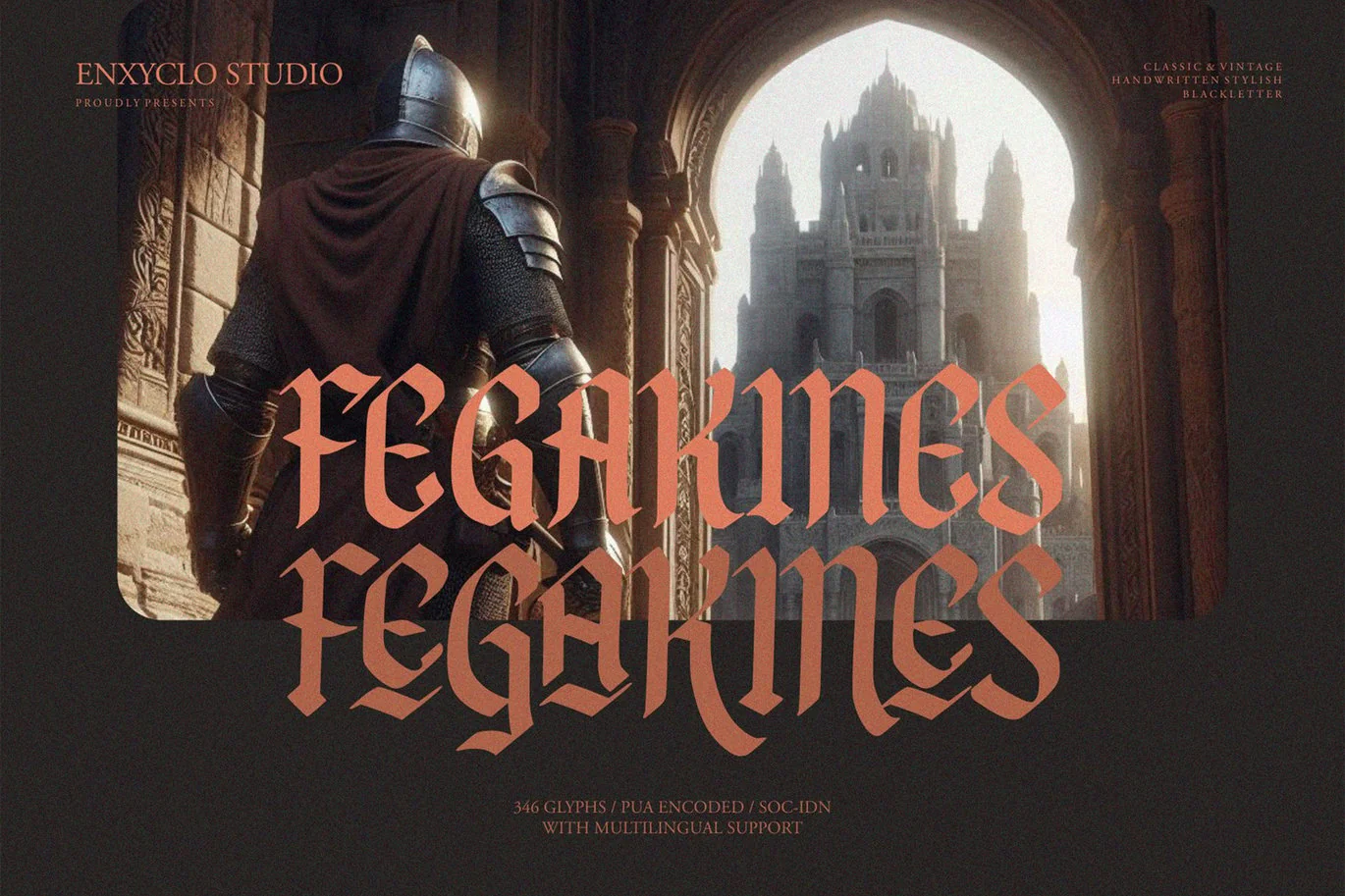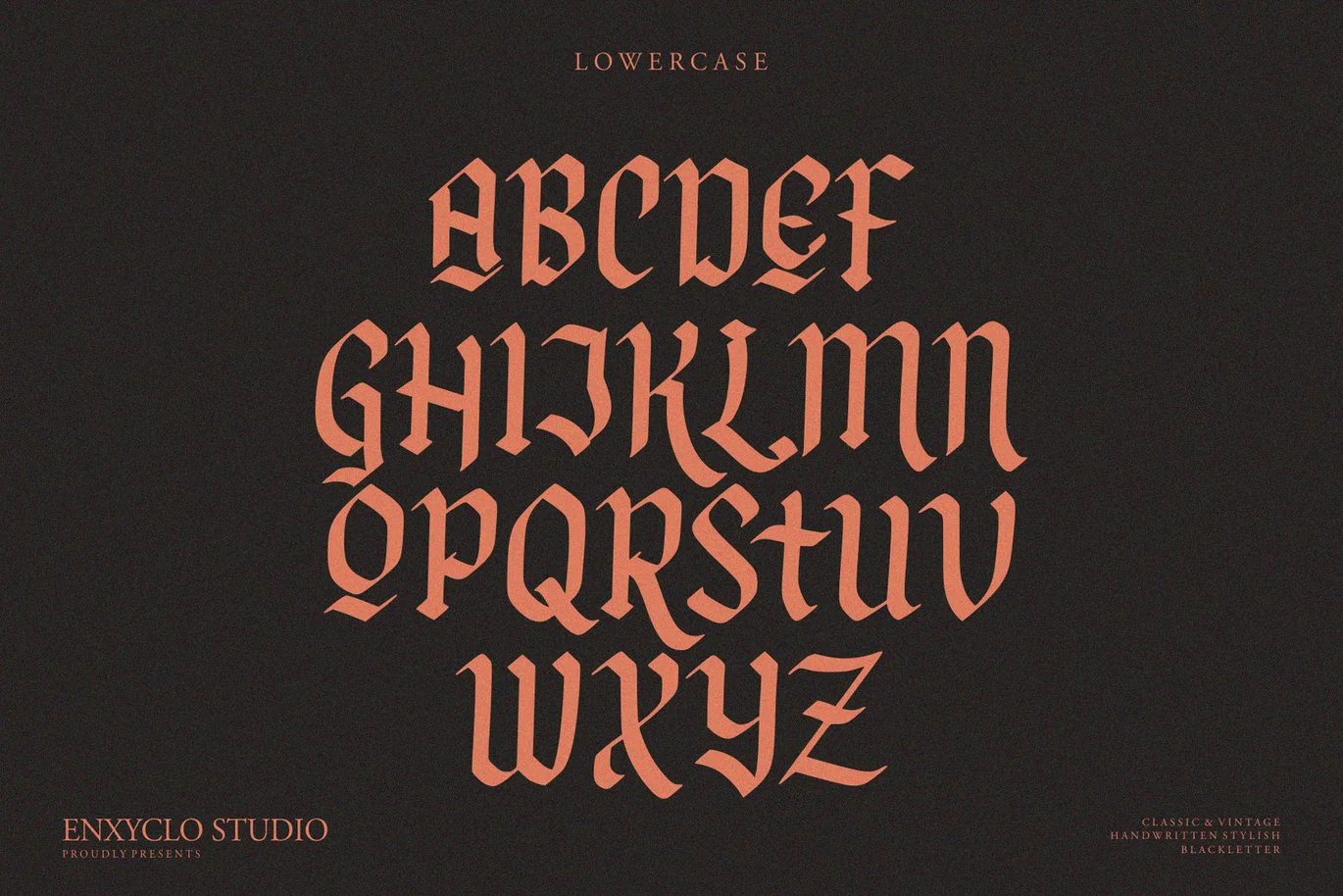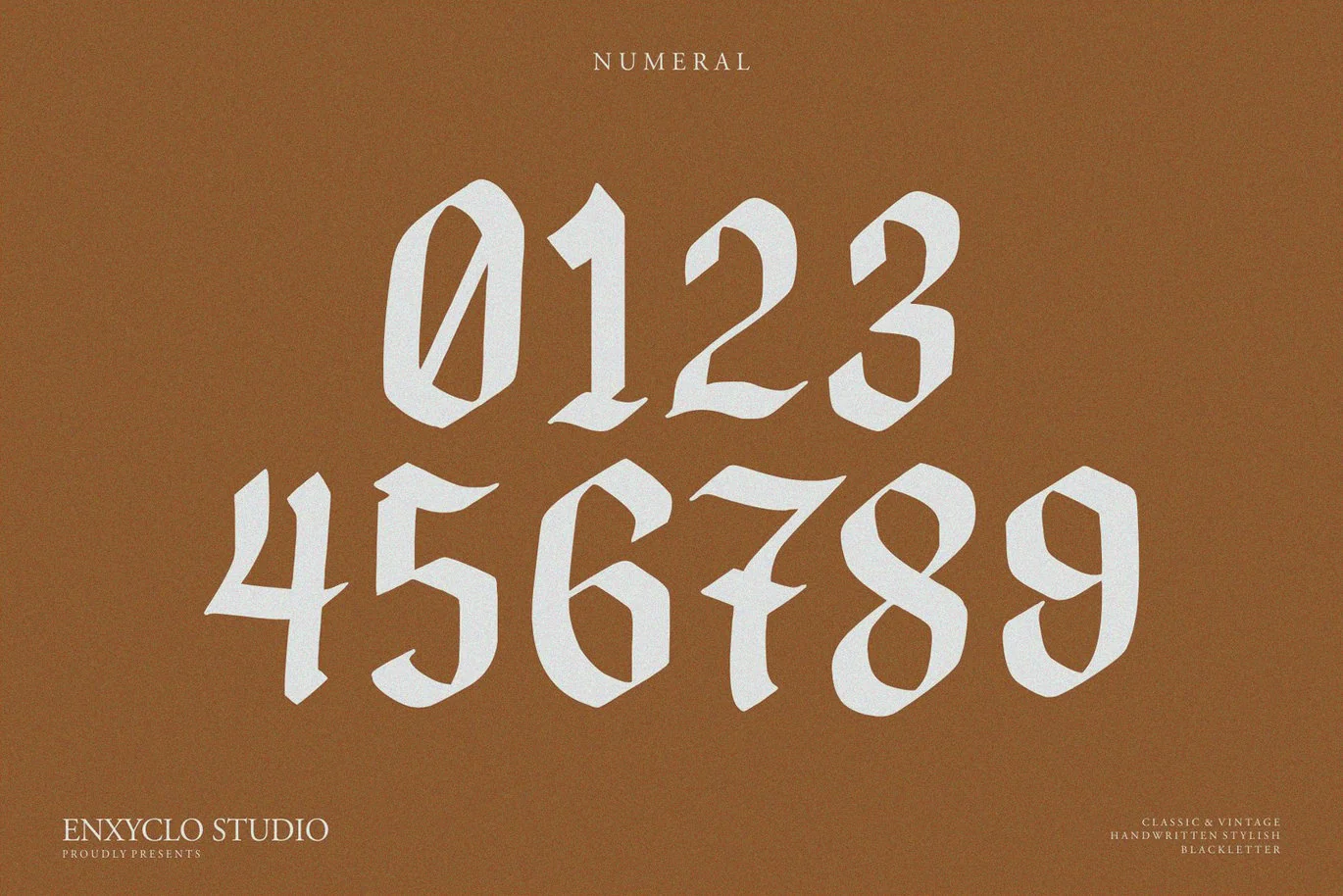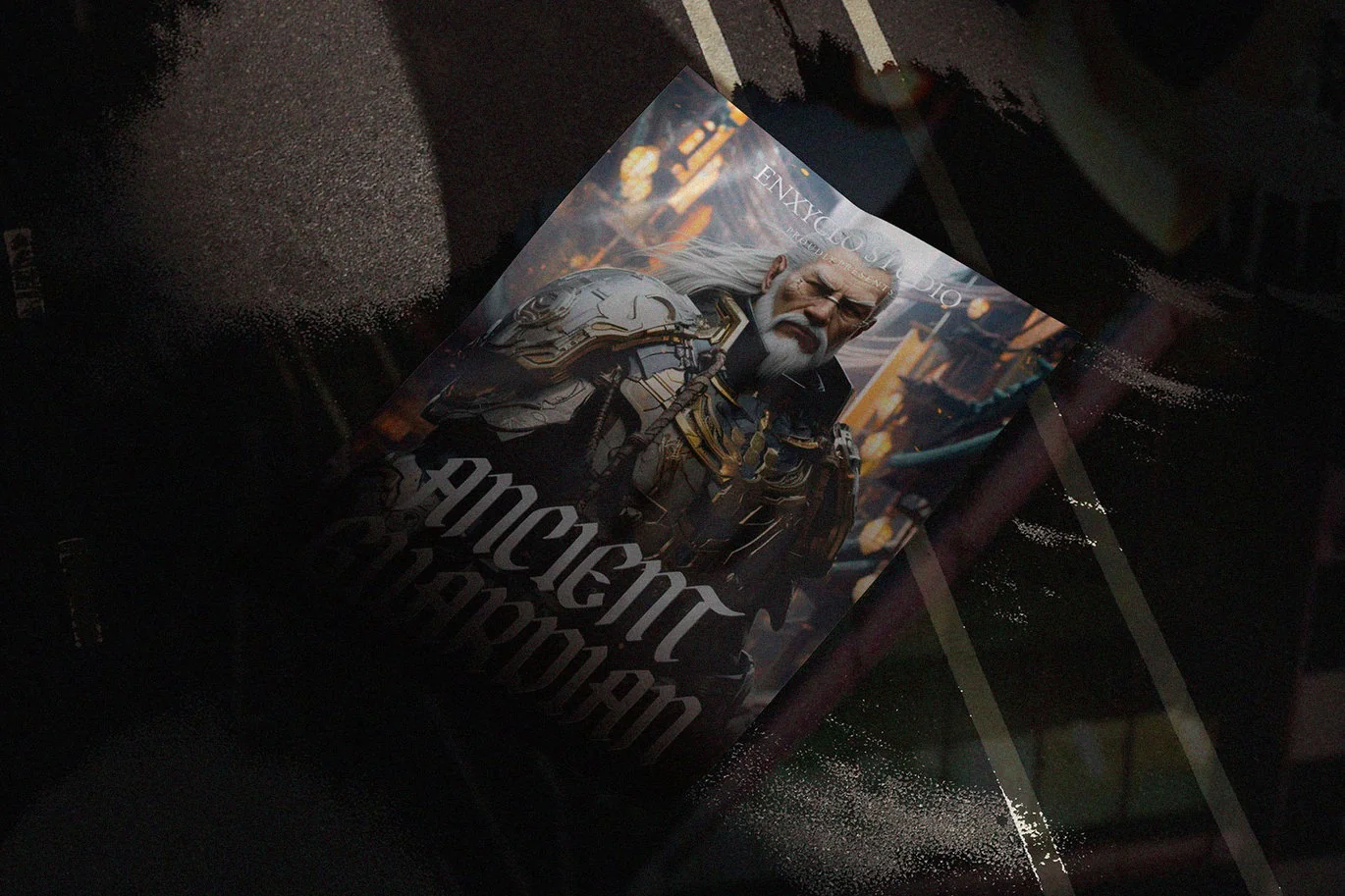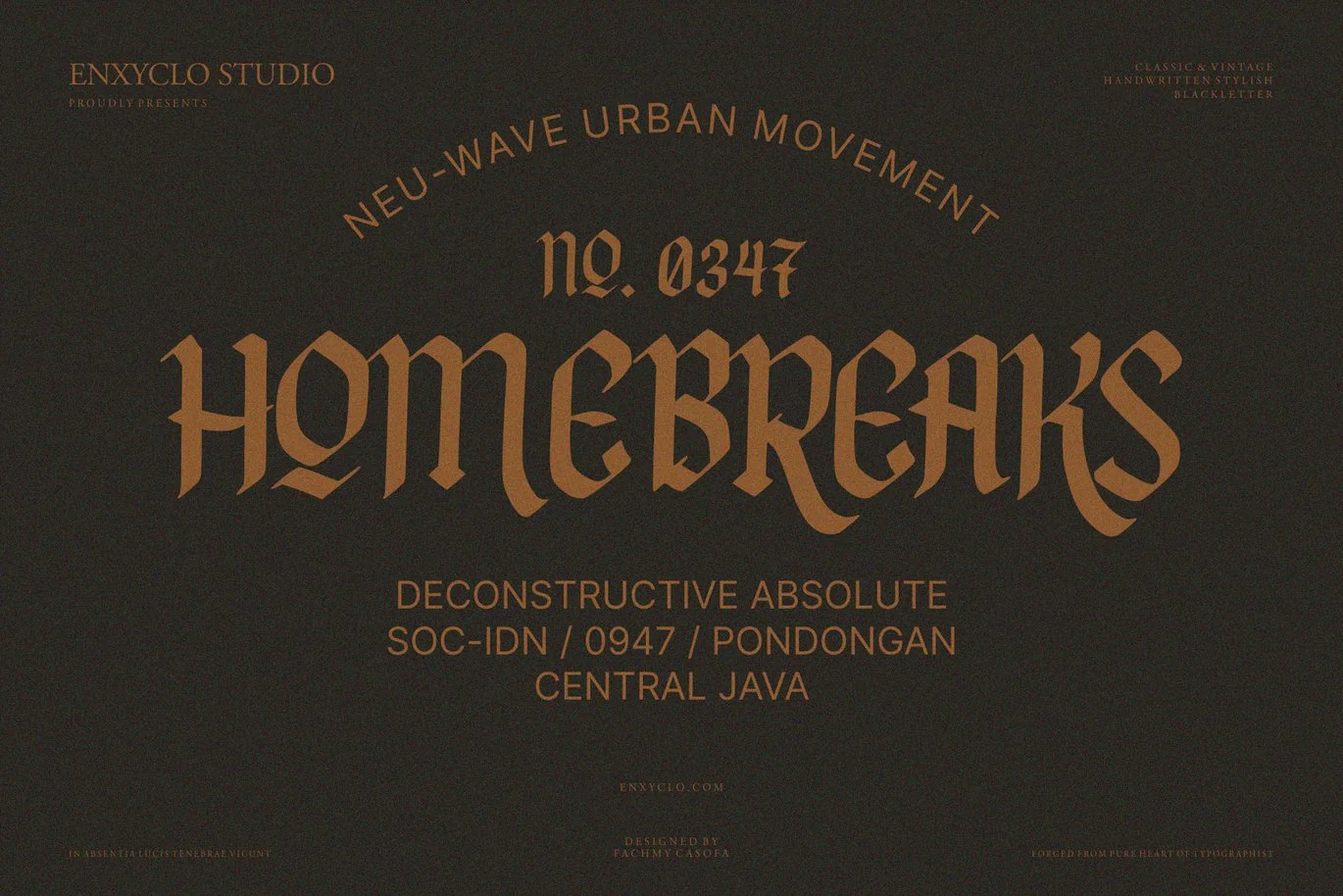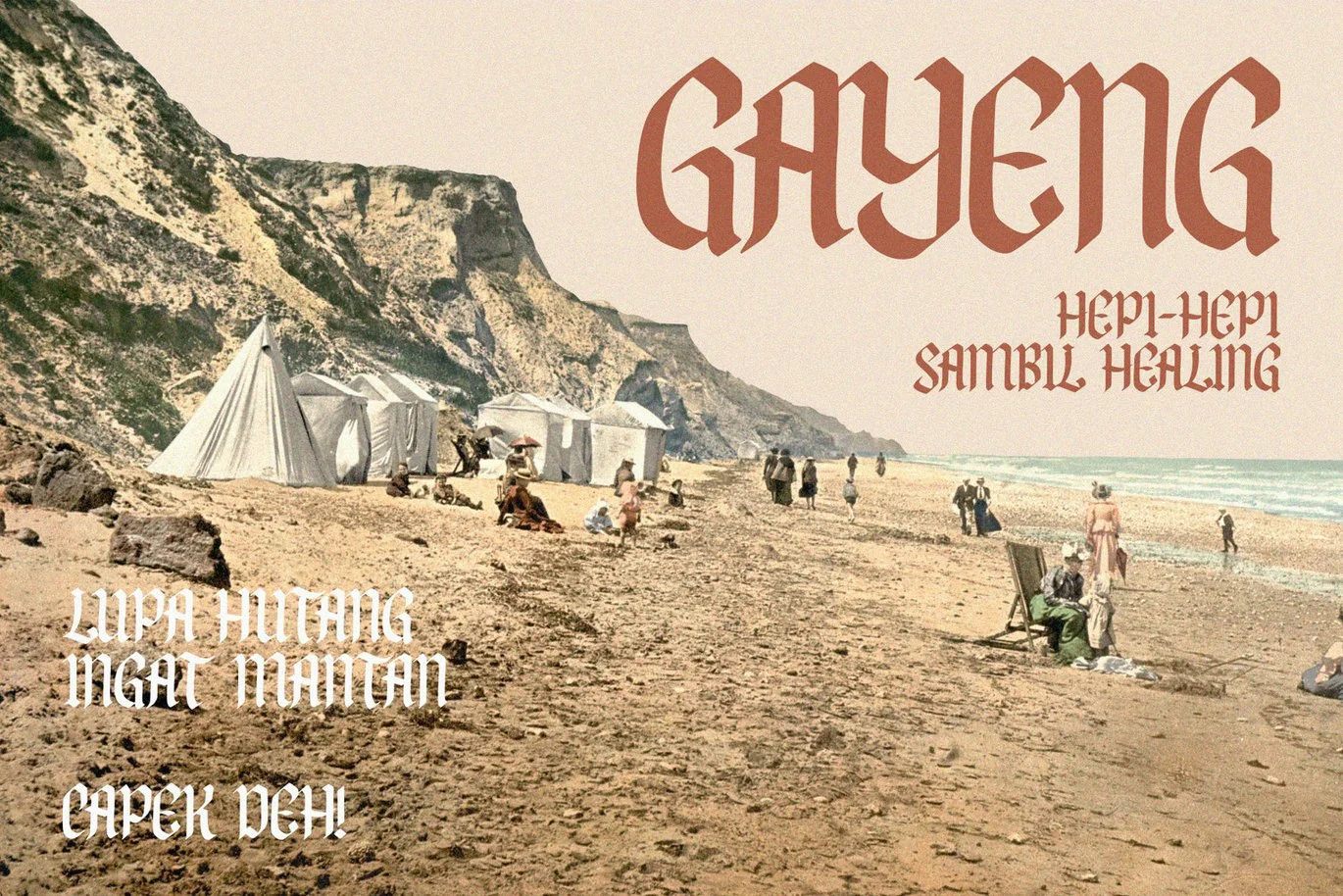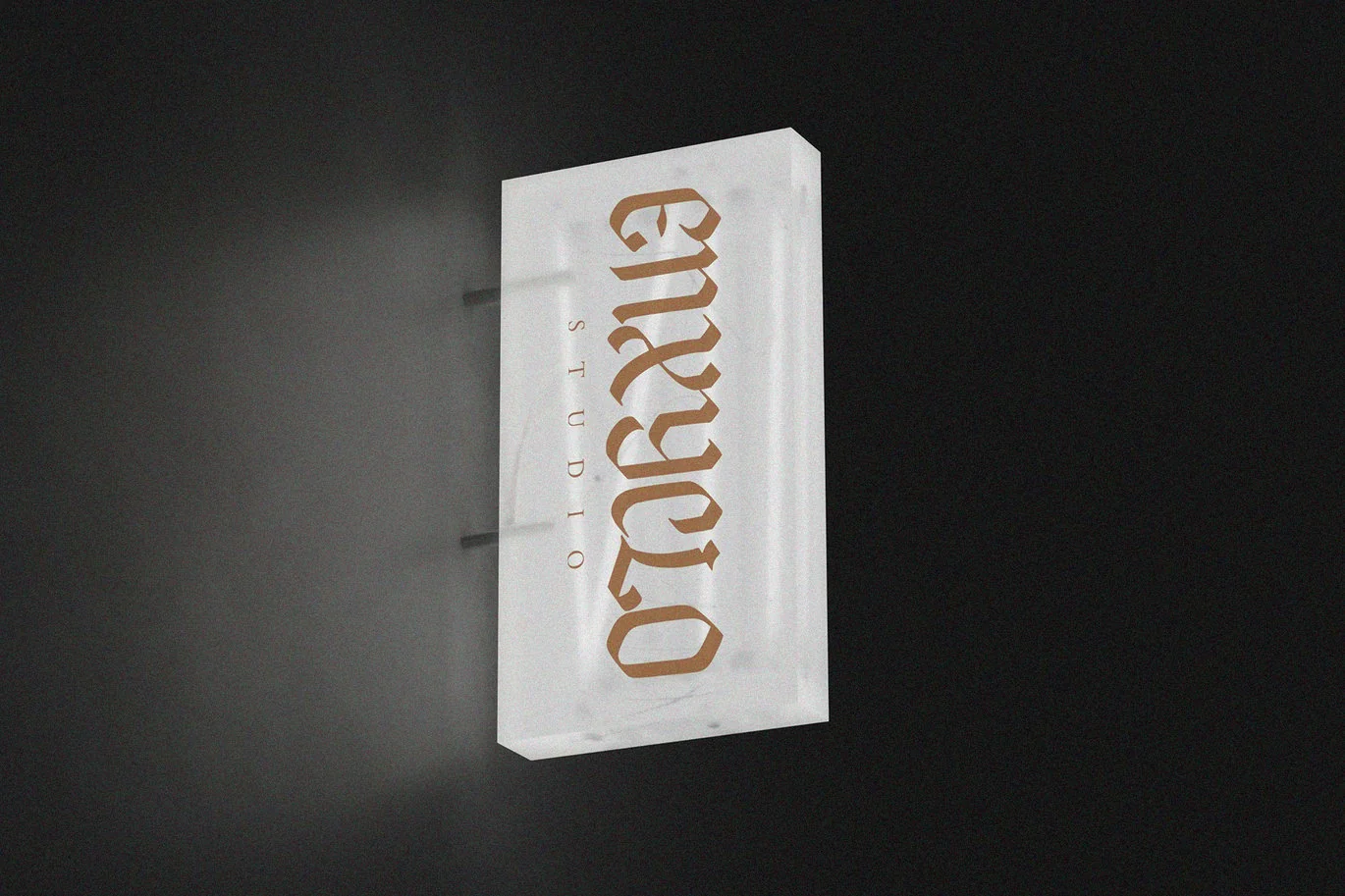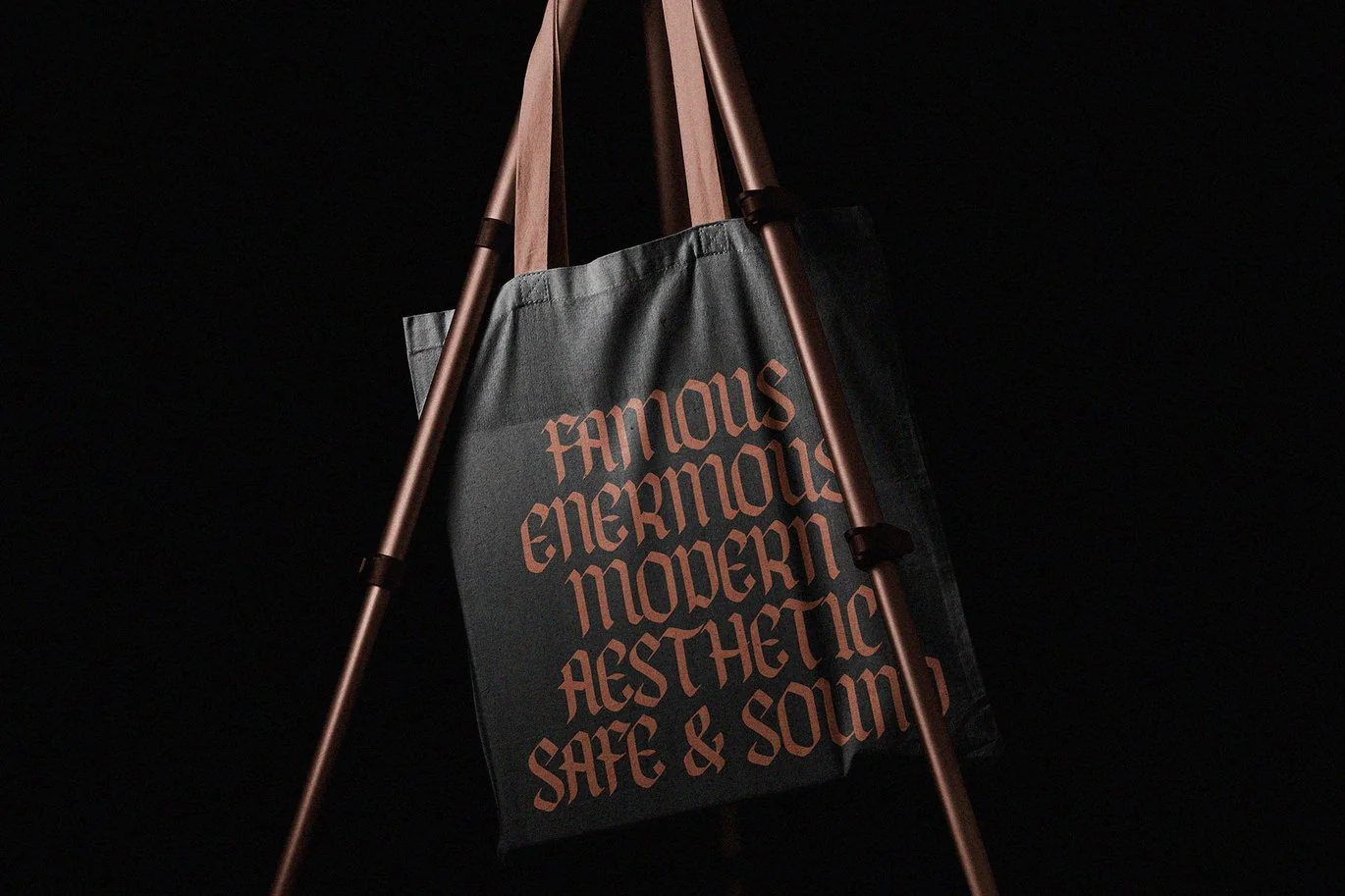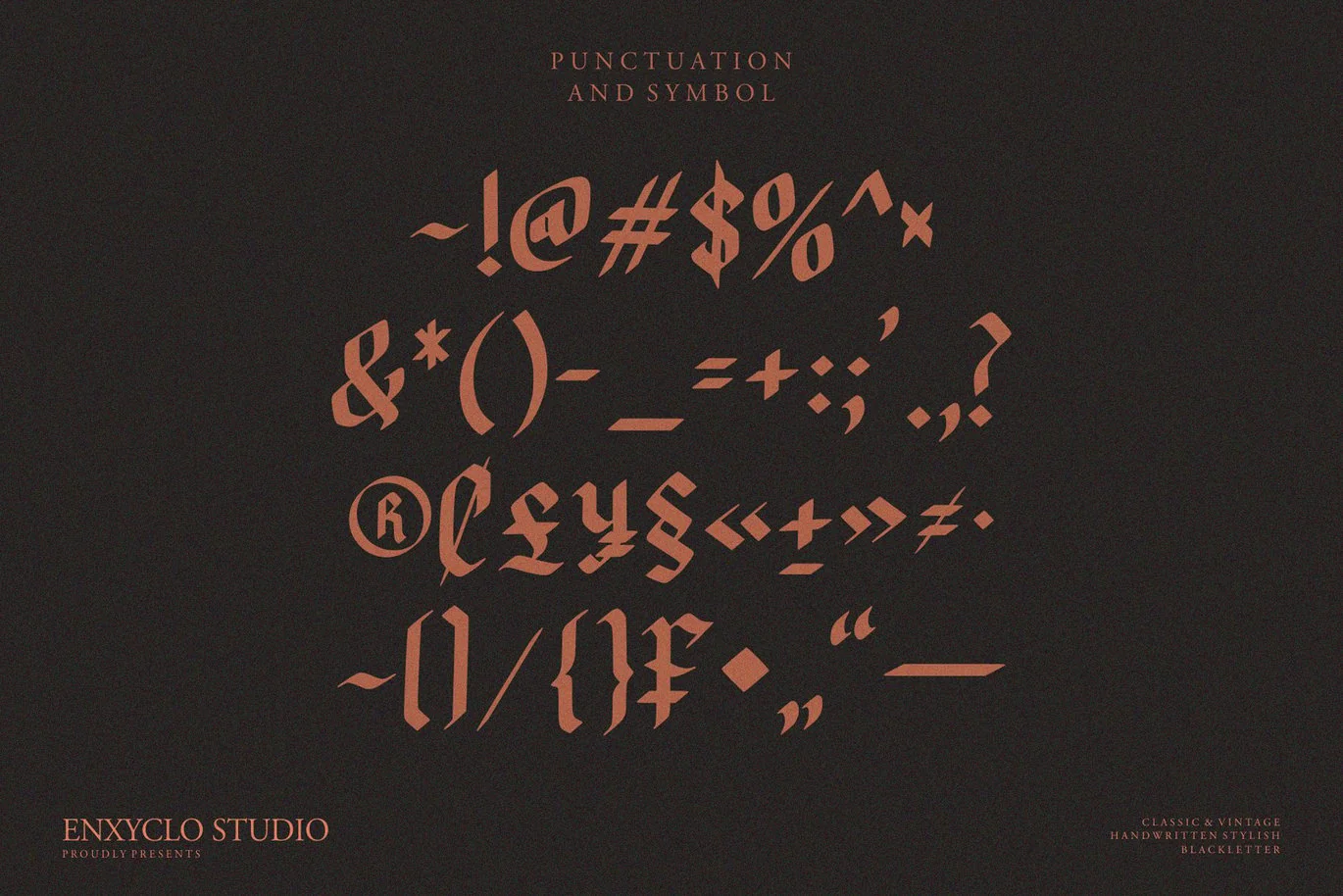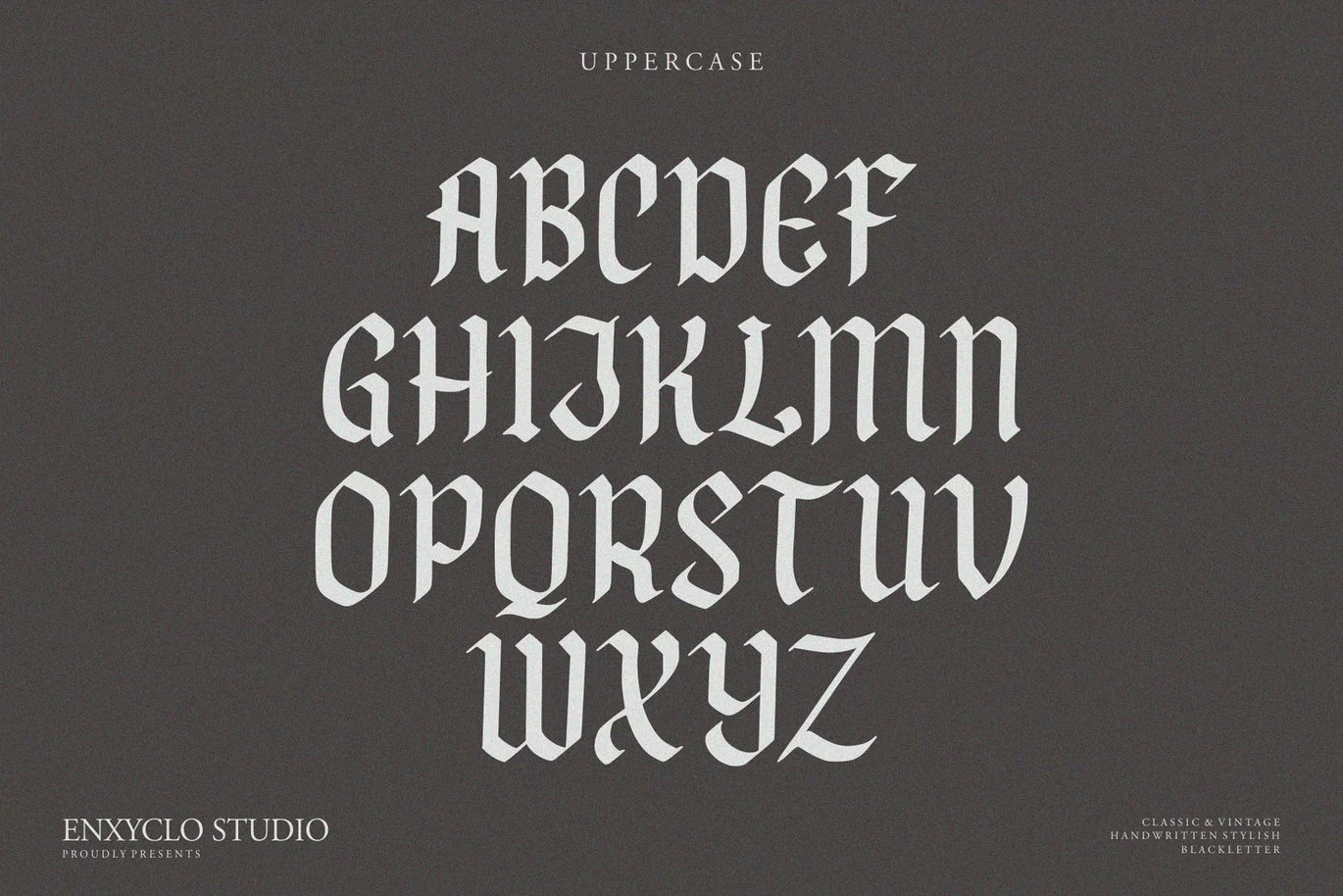
NCL Fegakines – Stylish Blackletter Font
NCL FEGAKINES is a unique, stylish and modern blackletter display font. Masterfully designed to become a true favorite, this font has the potential to bring each of your creative ideas to the highest level! It was purposely crafted to be used in large point sizes, although it doesn’t lose its magic in small point sizes. No matter the topic, this font will be an incredible asset to your fonts’ library, as it has the potential to elevate any creation. With this beautiful font, absolutely you can make your project stand out from the rest.
- Contains 346 Glyphs
- Uppercase, Lowercase, Numeral, Punctuation & Symbol